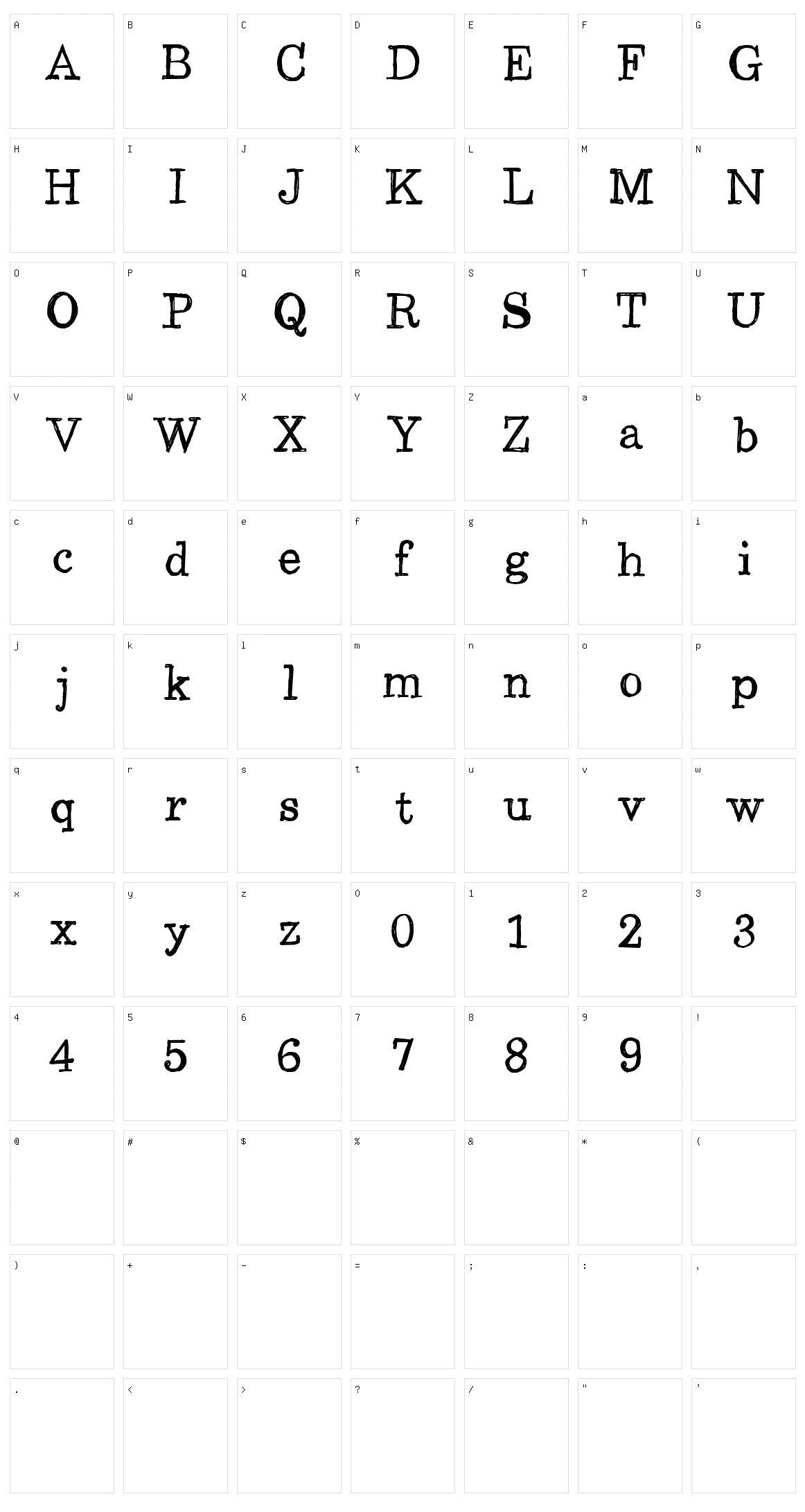
The free font CF Back to School is carefully designed by Cloutierfontes, showcasing a thoughtful balance of creativity and usability and falls under the Typewriter font style. When you download the ZIP file, it contains only 56.6 KB of font files, making it lightweight and quick to download. Please review the license details below to understand permitted usage and distribution rights. If license information is not available, we recommend using this font for personal projects only or contacting the author directly for commercial usage permissions.